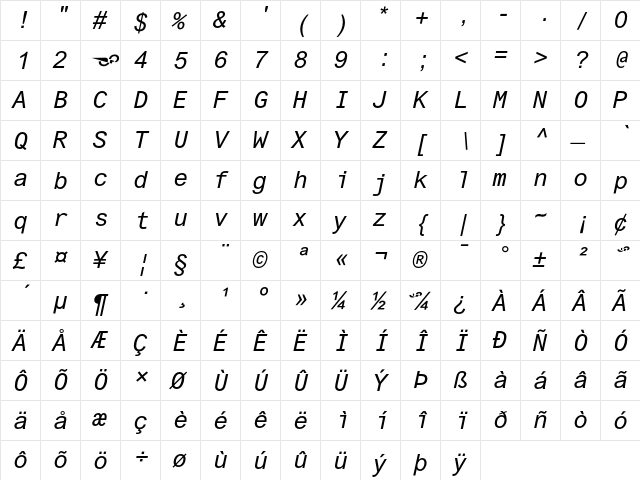
Arial Monospaced MT Italic Font Preview
Design Context for Arial Monospaced MT Typeface
Arial Monospaced MT uses fixed-width spacing throughout, giving it the structured, systematic character associated with coding environments and technical documentation. The dynamic lean of this cut emphasises speed and emphasis in any layout.